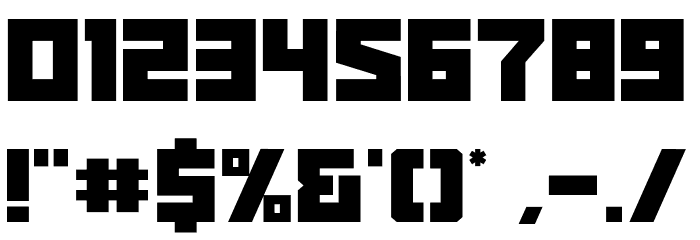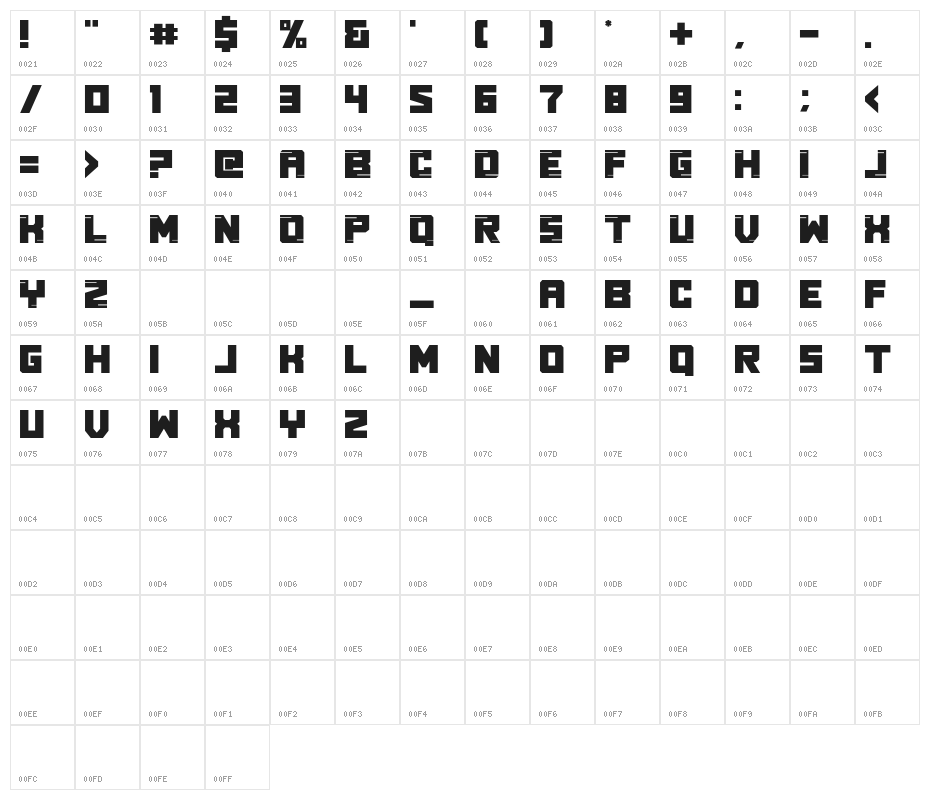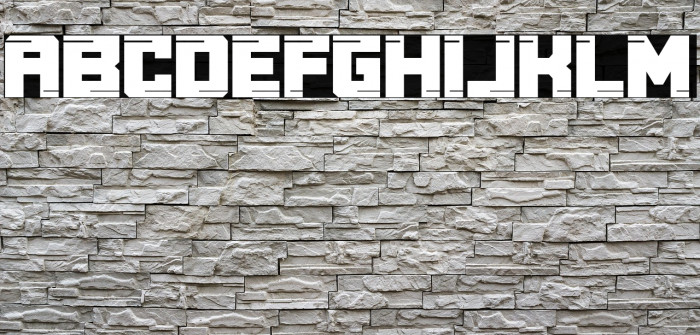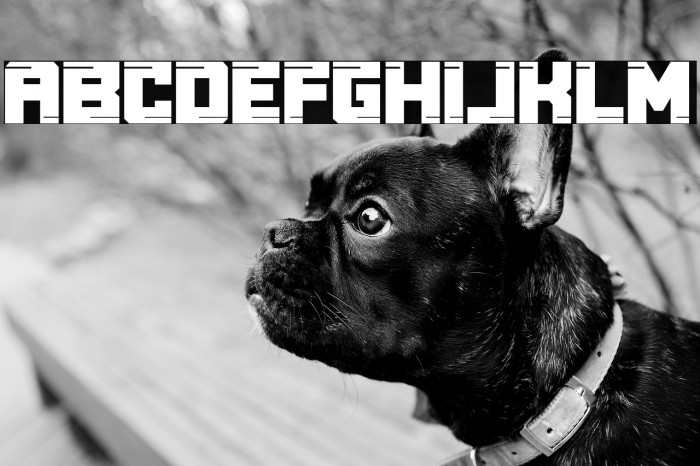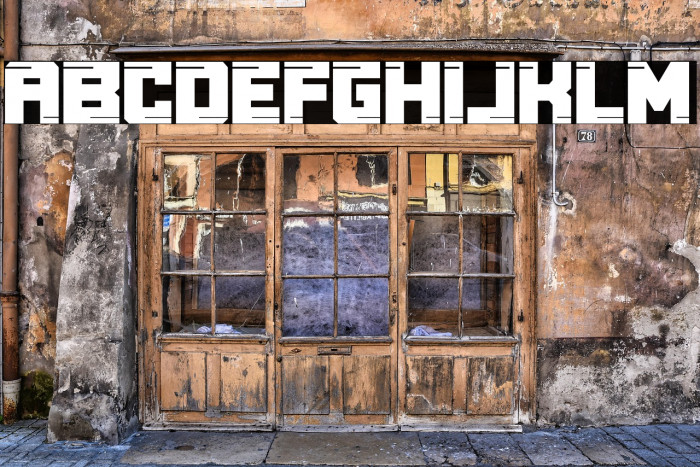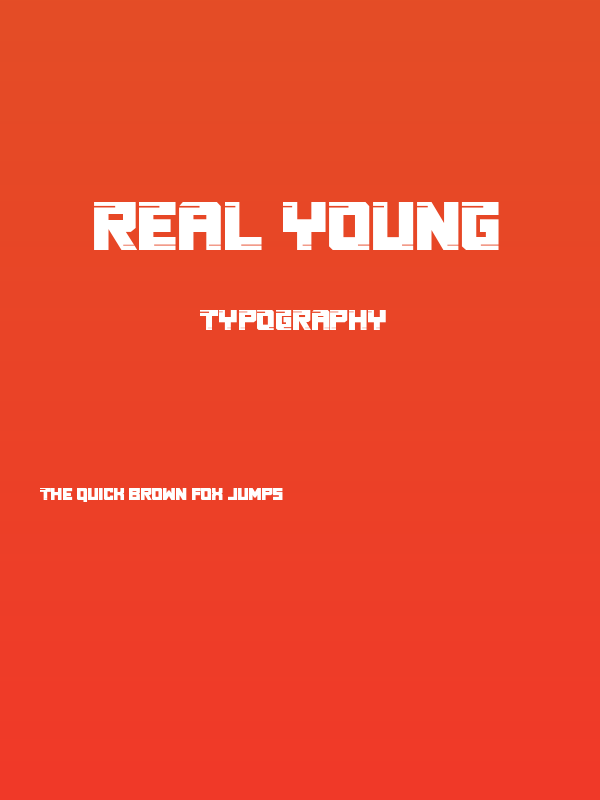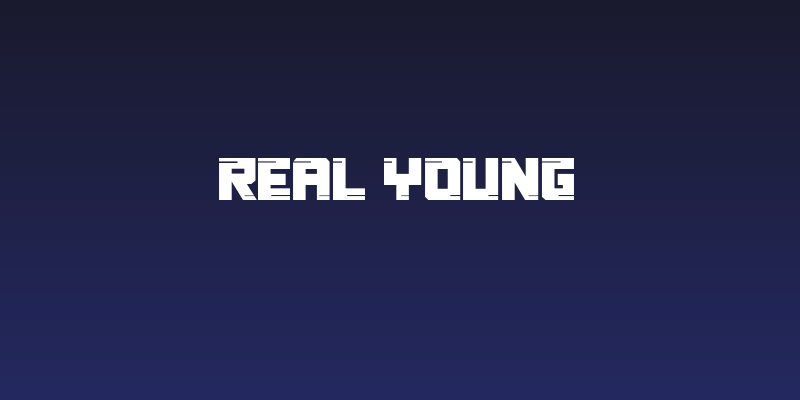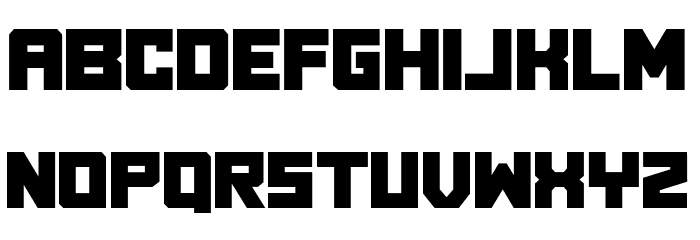
Real Young Font
Real Young Description
This font features a bold, geometric design with a distinctly modern and futuristic aesthetic. The characters are constructed with sharp angles and straight lines, giving them a blocky appearance. The uppercase letters are uniform in height, while the lowercase letters maintain a consistent style, enhancing readability. The numerals and special characters follow the same geometric pattern, ensuring a cohesive look across all glyphs. The font's strong presence makes it ideal for attention-grabbing designs, while its clean lines and structured form lend a sense of order and precision.
| Proposed Projects | Ideal for video game titles, tech branding, posters, and futuristic-themed designs. |